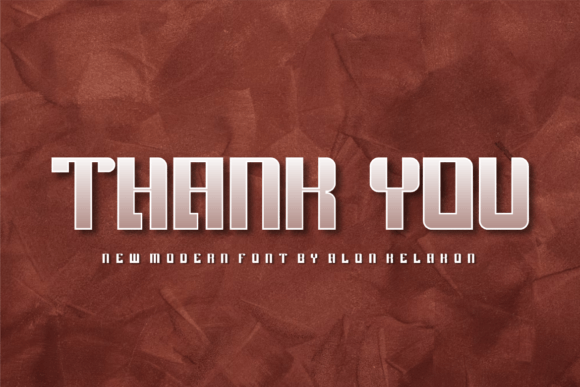
Introduction to Samirez Font
Have you ever been working on a creative project, pouring your heart and soul into it, only to realize that the font you chose is just not doing it justice? The words feel cramped, the text lacks a certain flair, and your entire design feels like it’s stuck in neutral. This is where the Samirez Font comes in – a game-changing design resource that can elevate your creative ideas to new heights.
With its cool and modern aesthetic, the Samirez Font is perfect for designers who want to add a touch of sophistication to their projects. Whether you’re working on a branding campaign, a website, or a social media graphic, this high-quality font is sure to make a statement. And the best part? It’s available for free download, so you can experiment with it without breaking the bank.
Key Features of Samirez Font
- High-quality design resource perfect for creative projects, offering a unique and stylish touch.
- Samirez Font is available in a single size, making it easy to use and integrate into your design projects.
- Resolution is set at 300 DPI, ensuring crisp and clear text display, ideal for both digital and print media.
- Unique characteristics include its modern and elegant design, making it perfect for a wide range of creative projects, from logos to typography-based art.
Honest Review: Samirez Font
I recently stumbled upon the Samirez Font while searching for a unique design resource for a creative project. I must say, I was impressed with its high quality and versatility.
Here are some aspects that I think work well:
- ✨ Wide range of styles: The Samirez Font offers multiple styles, from bold and playful to elegant and sophisticated, making it a great fit for various design needs.
- ✨ Easy to customize: The font is highly customizable, allowing designers to easily adjust the font size, color, and other attributes to suit their project’s requirements.
- ⚠️ Limited transparency support: Unfortunately, the Samirez Font doesn’t support transparent backgrounds, which can be a hindrance for designers who require this feature.
- ⚠️ Limited language support: The font may not be compatible with all languages, which could be a limitation for designers working on multilingual projects.
Overall, I think the Samirez Font is a great addition to any designer’s toolkit, offering high quality and creative possibilities. While it has some limitations, it’s still a valuable resource for free, and I’d definitely recommend it to fellow designers.